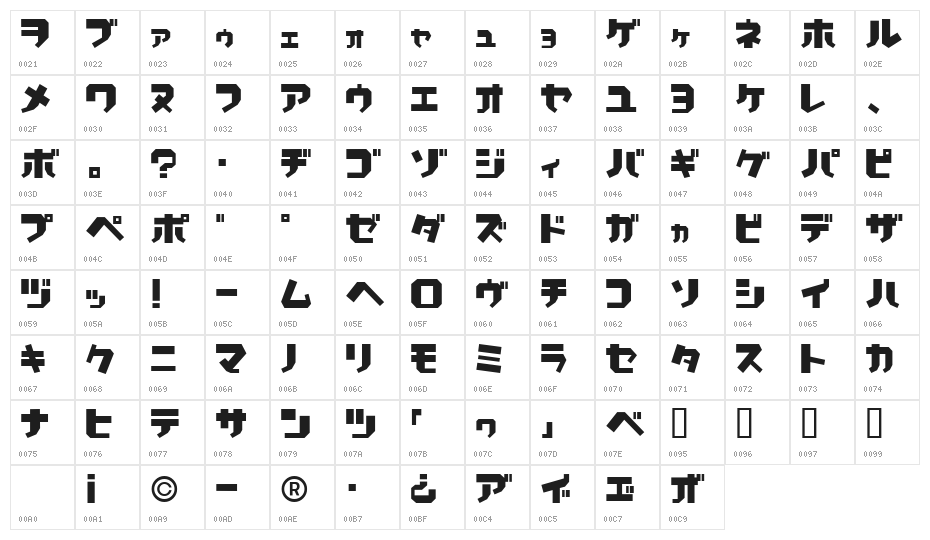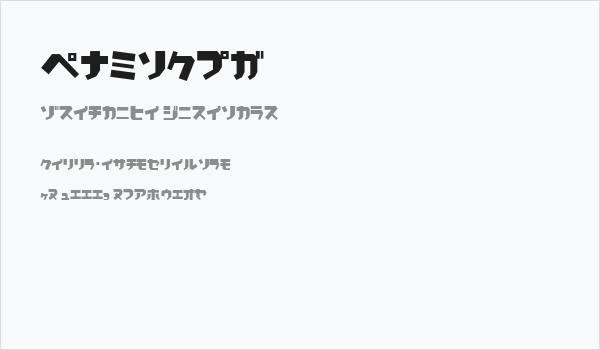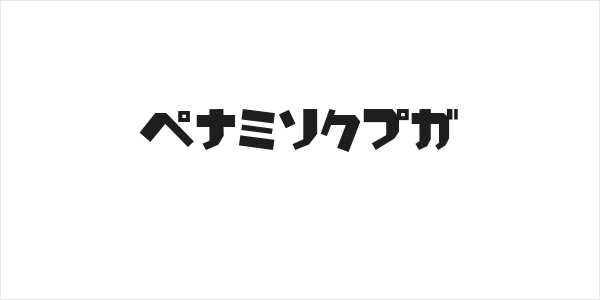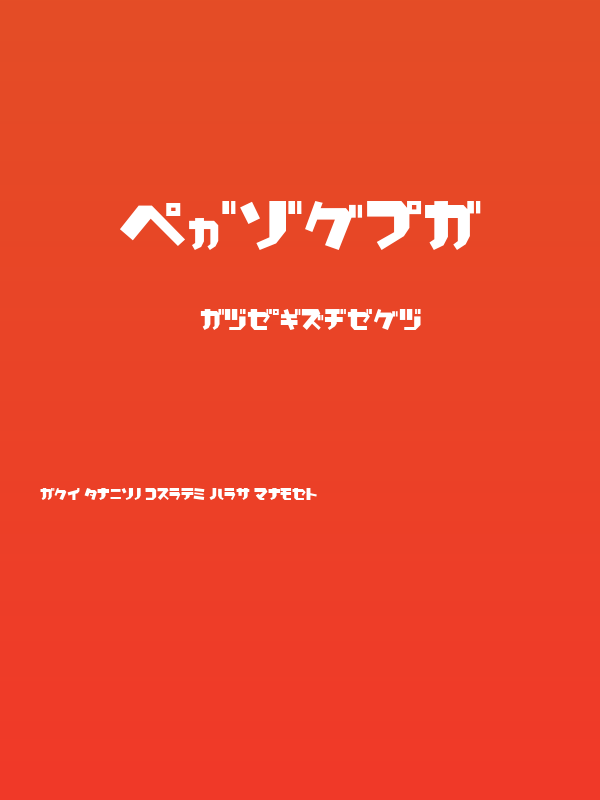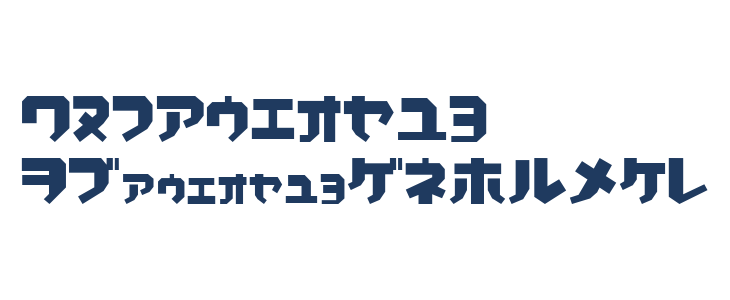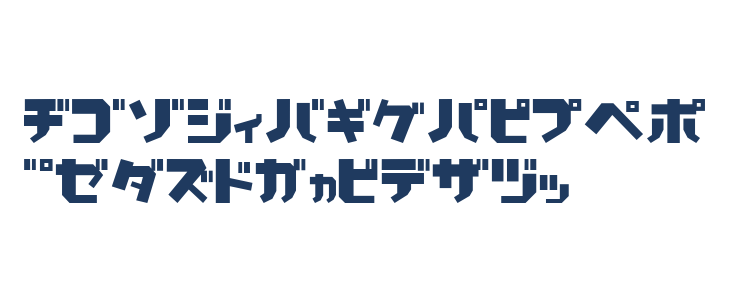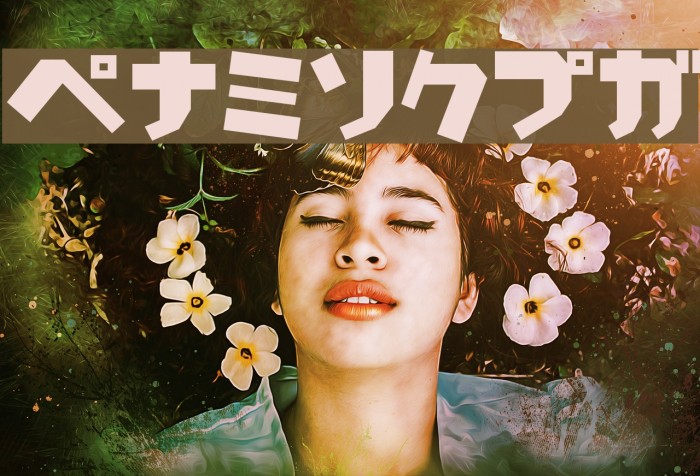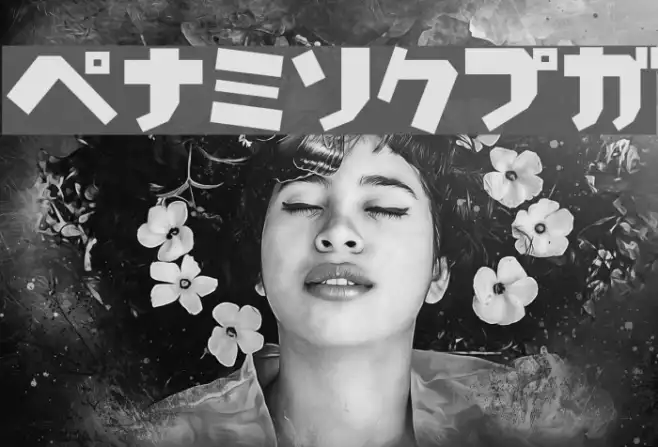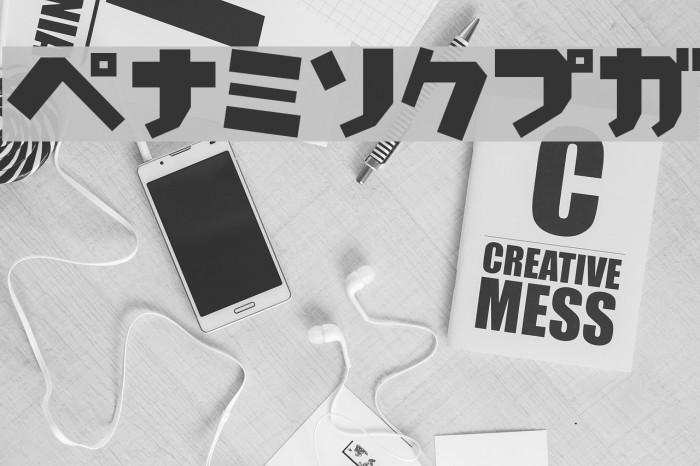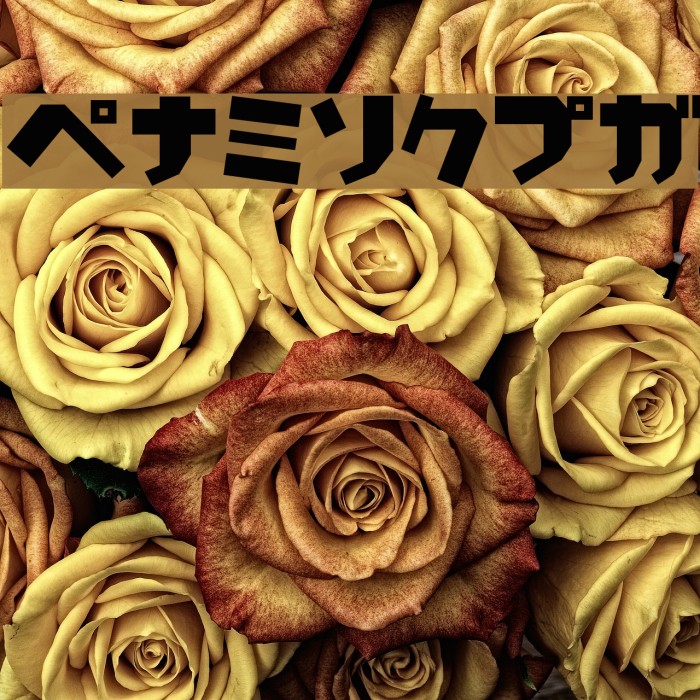
LunchKT Font
LunchKT Description
This font features bold, angular characters with a strong geometric influence, giving it a modern and assertive appearance. The strokes are thick and uniform, contributing to a high contrast that enhances readability. The characters are tightly spaced, creating a compact and cohesive look. Its distinct style is reminiscent of futuristic or tech-inspired designs, making it suitable for attention-grabbing headlines or branding that requires a bold statement.